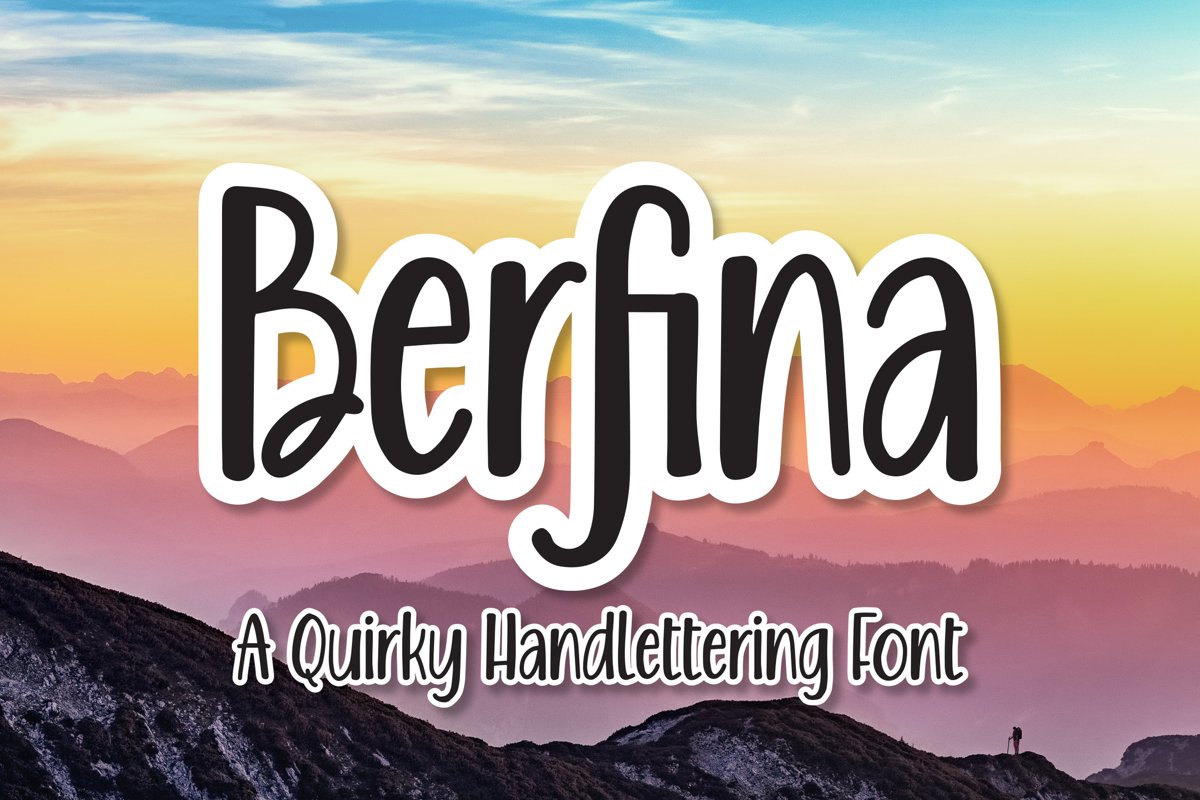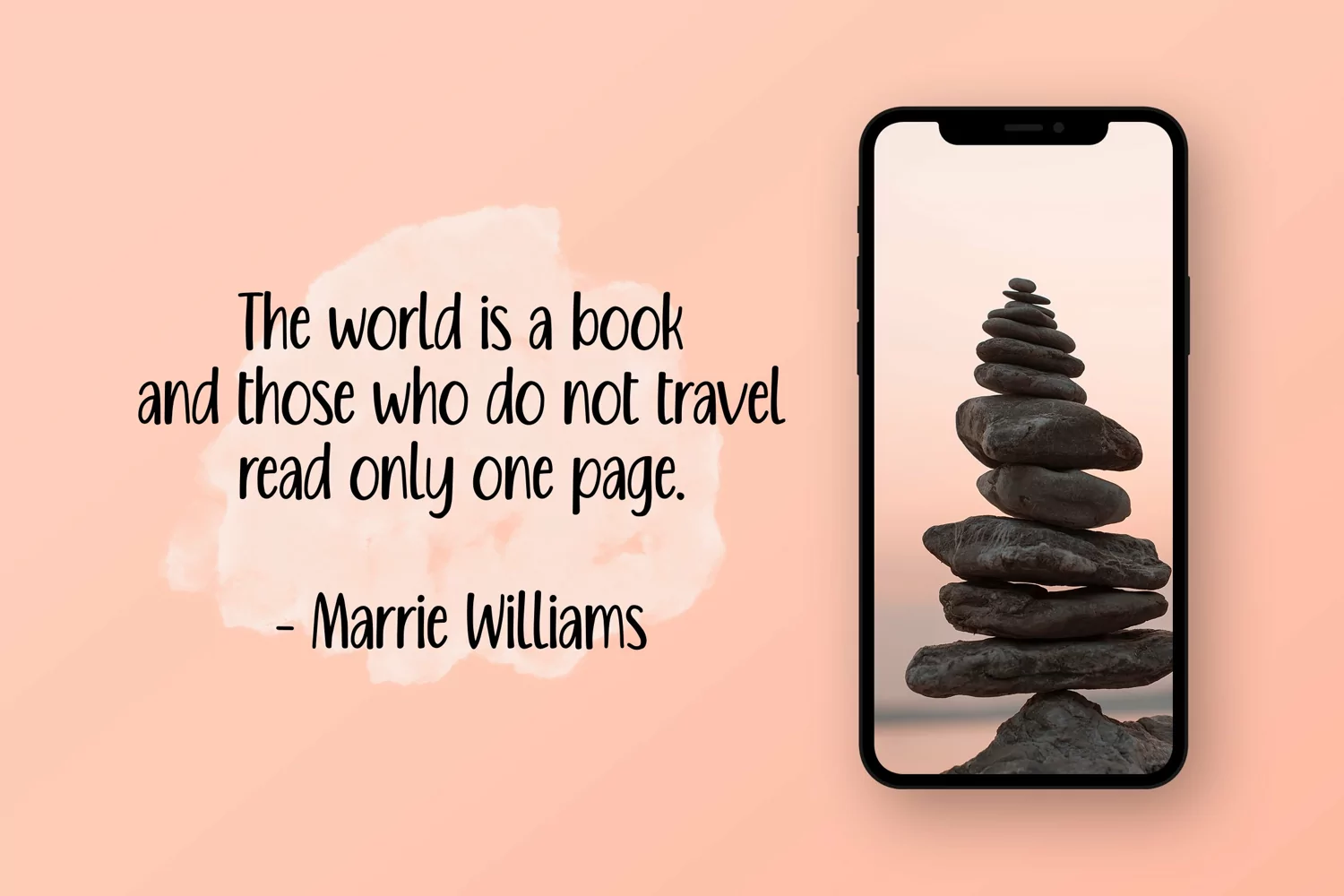
Berfina - Handlettering Font that contain lowercase, uppercase, symbol, and also support multi language. There’s a lot ligatures in this font. This Font also comes with ligatures, alternates and many more. this font suitable for fashion, branding, catalog and other design what you want.
Berfina